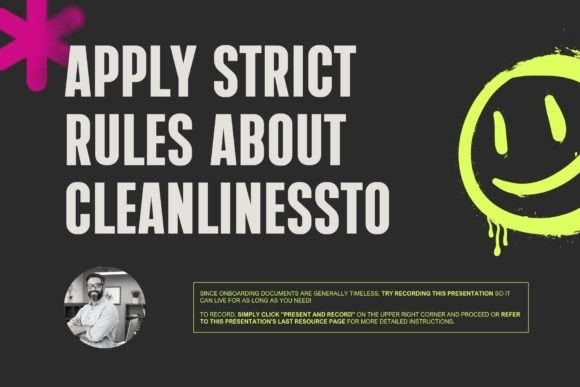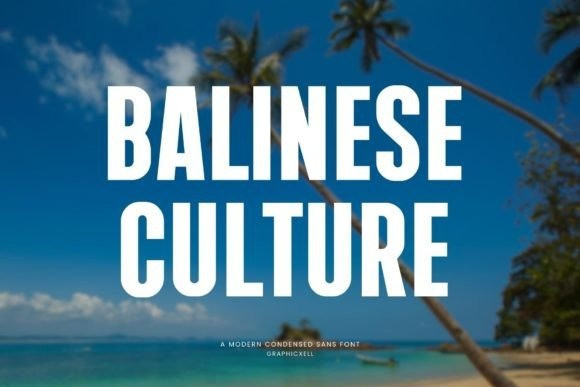
Balinese Culture Font
Balinese Culture Font is a modern and cool sans-serif font inspired by the vibrant traditions of Bali. With its clean and geometric letterforms, it captures the essence of contemporary design with a nod to the rich cultural heritage. Perfect for logos, branding, and editorial designs, Balinese Culture brings a touch of uniqueness and sophistication to any project. Its versatility and legibility make it suitable for both digital and print applications, creating a captivating visual impact.